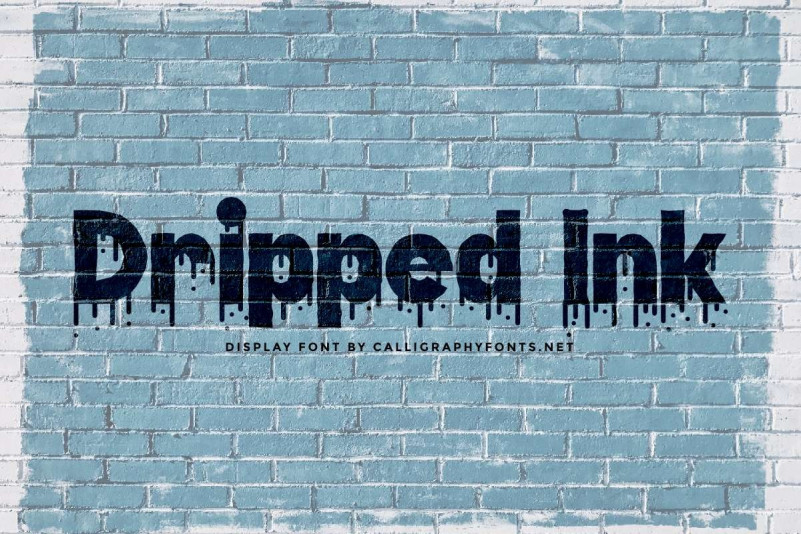
Dripped Ink Display Font
Dripped Ink Font is a decorative display font with ink drop effect, exclusively designed by CalligraphyFonts.net.
Dripped Ink Font has a unique letter style that will match many themes from horror, games, and many more. This awesome ink drop display can be used on graffiti, brandings, posters and other materials. The creative styles of modern and horror appeal of the ink drop art will make this font stand out.
This font includes a full set of uppercase and lowercase characters, numbers and symbols all using ink drop horror. Watch how this font brings your work to life, supports multilingual. Works on PC & Mac. Immediate action on posters, print material, walls, web pages and more.